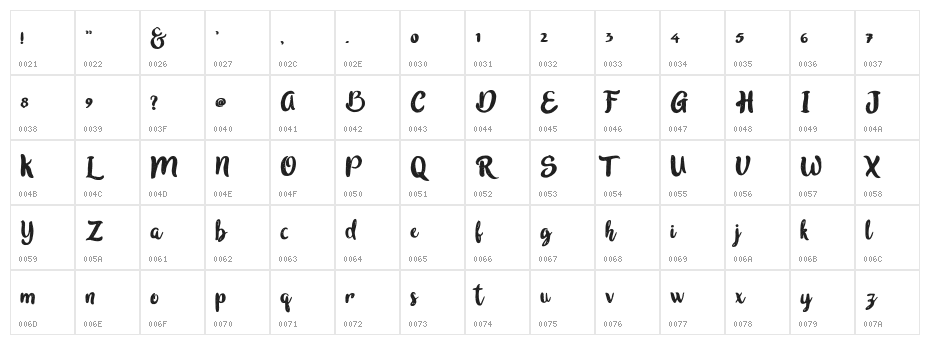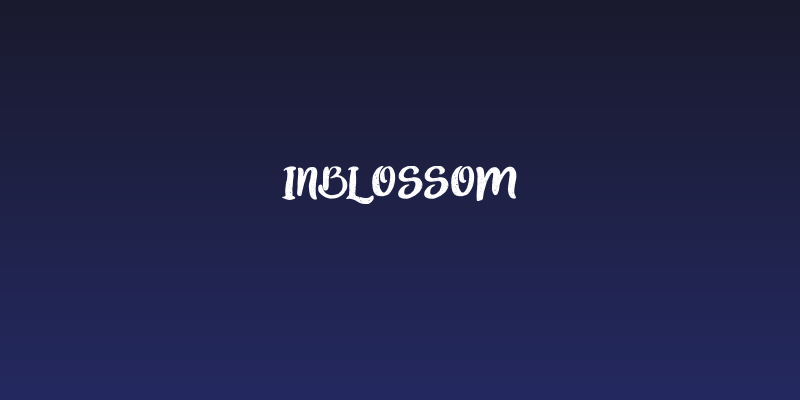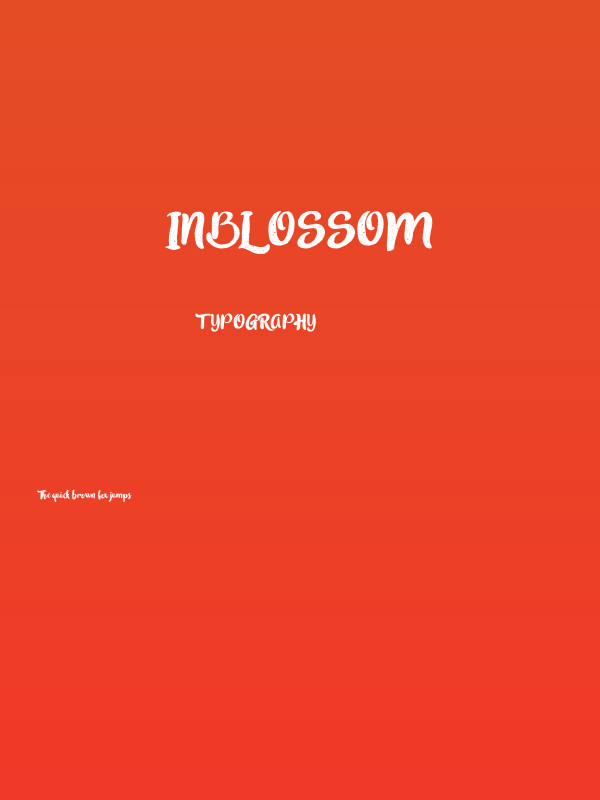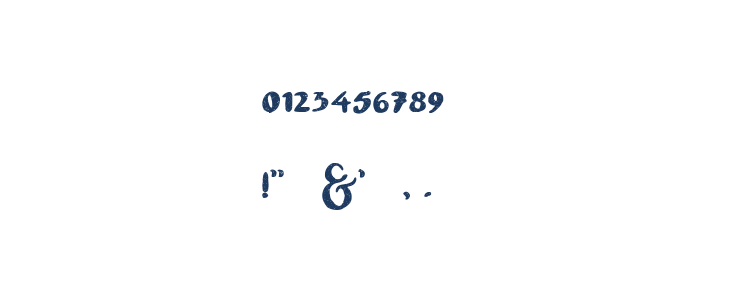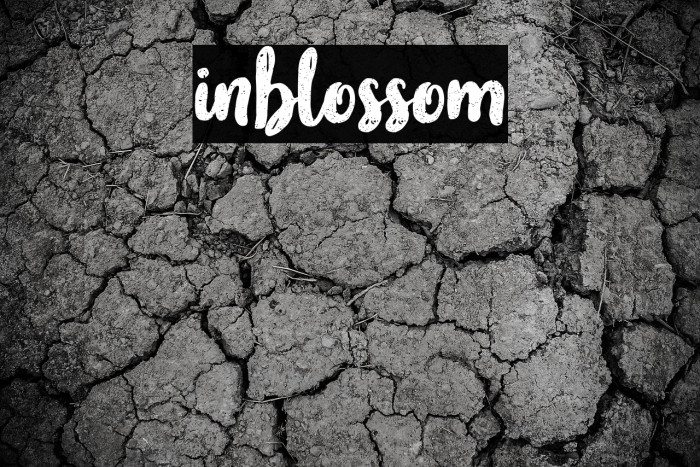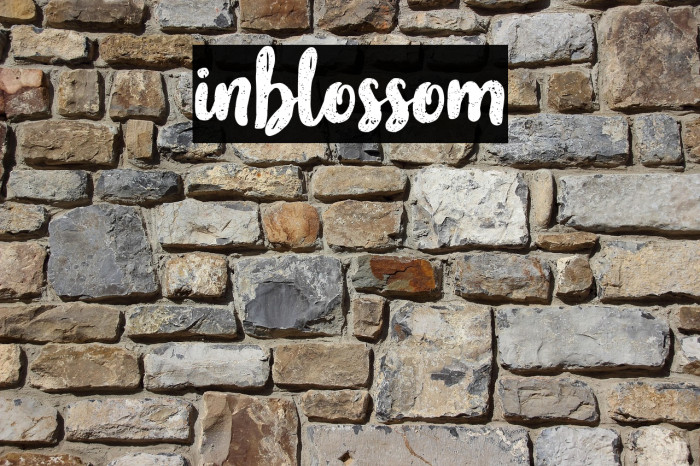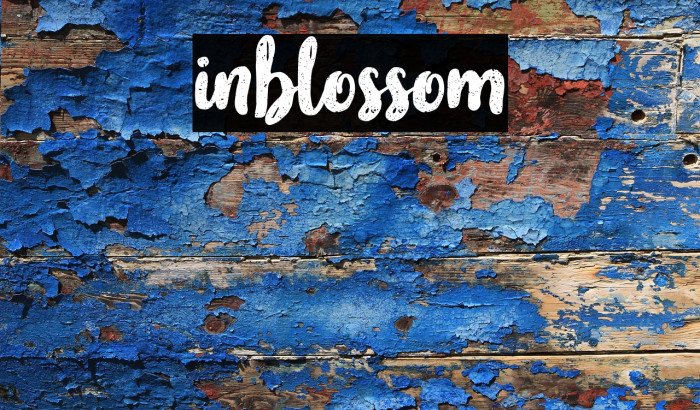
inblossom Font
inblossom Description
This font features a bold, playful script style with a textured, hand-drawn appearance. The letters are rounded and connected, giving it a casual and friendly feel. The uppercase and lowercase letters maintain a consistent style, with a slight slant that adds to its dynamic look. The numbers and special characters follow the same aesthetic, ensuring uniformity across all glyphs. The texture within the letters adds a unique, vintage touch, reminiscent of chalk or brush strokes. This font is ideal for projects that require a personal, artistic touch.
| Proposed Projects | This font is perfect for greeting cards, invitations, posters, and branding projects that aim for a personal and artistic touch. |